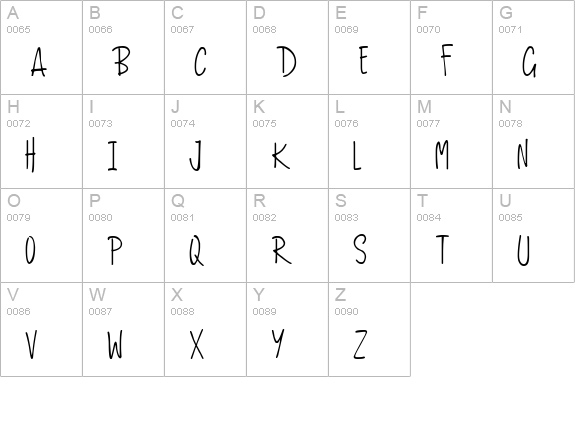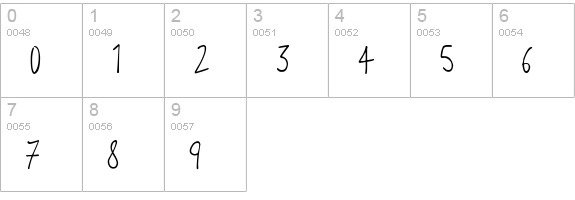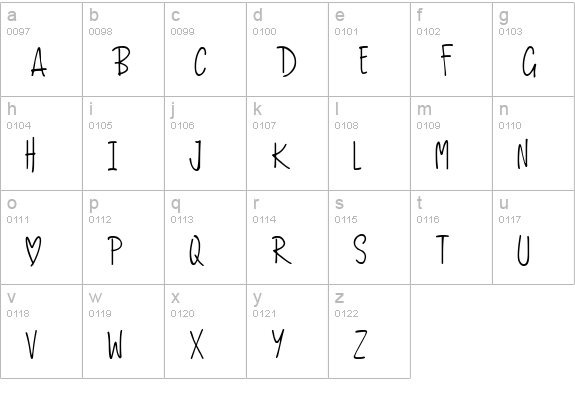
Love and Romance Font Details
Love and Romance is a free for personal use font in the Script > Handwritten category, designed by Darrell Flood. It has been downloaded 112 times and is available for Windows, Mac and Linux.
Indulge in the enchanting world of love and romance with this exquisite Love and Romance font. This font captures the essence of passion and affection with its elegant curves and graceful design. Whether you are creating wedding invitations, love letters, or romantic quotes, this font will add a touch of charm and sophistication to your projects.